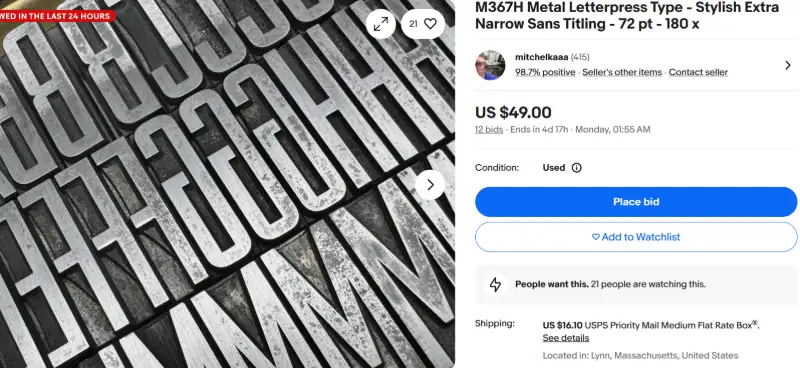
M367H Metal Letterpress Type - Stylish Extra Narrow Sans Titling - 72 pt - 180 x*
M367H Metal Letterpress Type - Stylish Extra Narrow Sans Titling - 72 pt - 180 x
I can't find the name of this very large and rather stylish extra narrow sans serif.